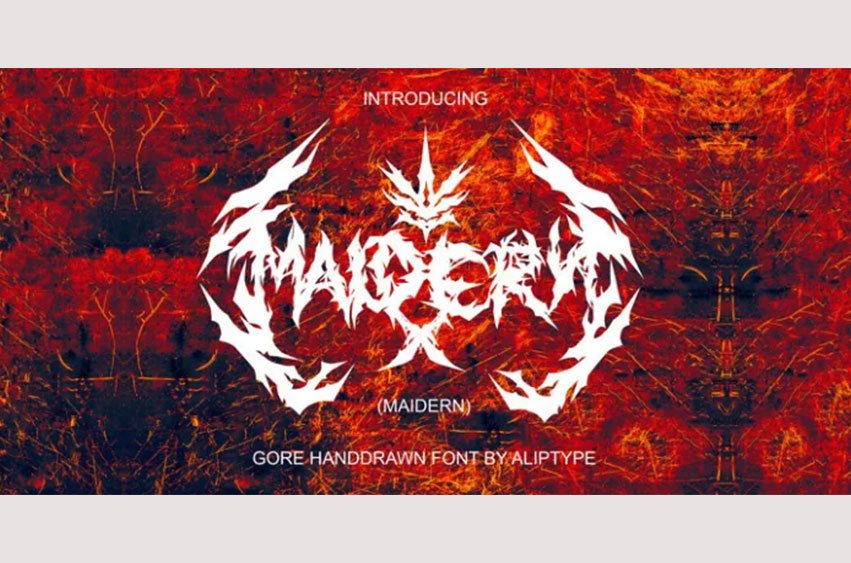
Maidern Font is a gore and death metal typeface style. Maidern is perfect for logotype death metal brands, products, merchandise death metal band, death metal band covers, rock events, rock posters, rock magazine covers, branding, product design, labels, and another creative project. Make your artwork more gore with the deadly style of this font.